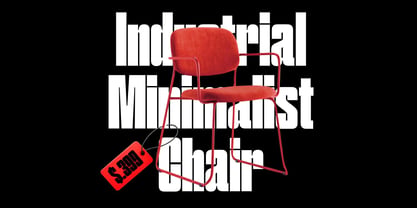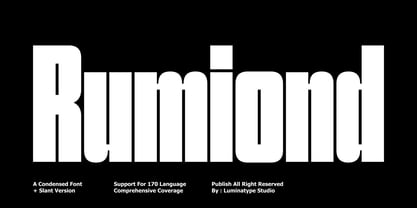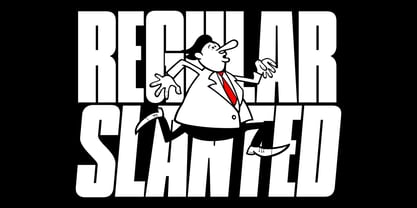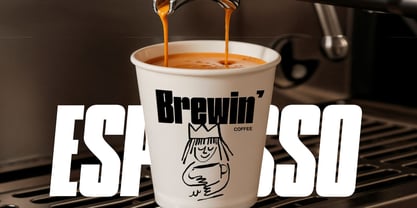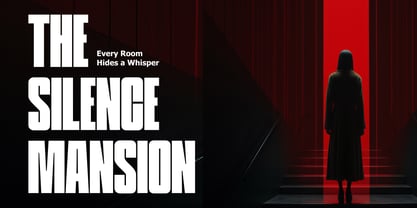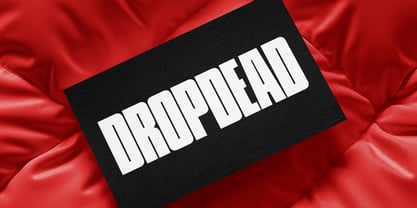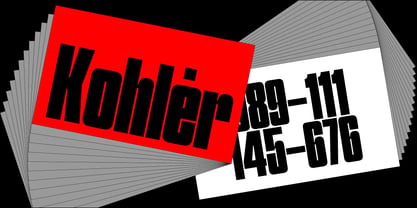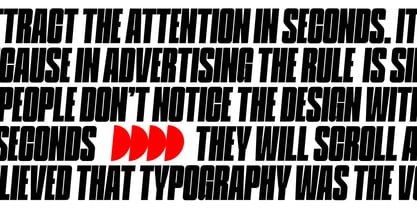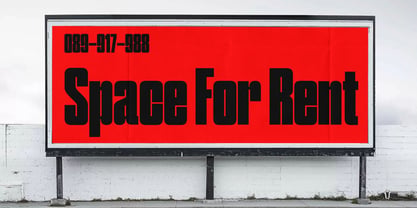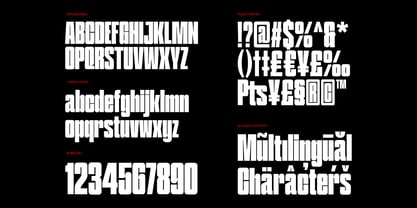
Rumiond
Rumiond – Condensed Bold Font Regular + Slant By Luminatype Studio Rumiond is a bold condensed typeface designed to deliver strength, clarity, and confident visual impact. Its tall, compact structure allows designers to create powerful layouts while maximizing space, making it perfect for headlines, posters, branding, advertising, and modern editorial designs. With its strong strokes and assertive presence, Rumiond communicates bold messages with precision and authority. The condensed form helps maintain readability while giving your designs a striking and professional character. Whether you're crafting eye-catching advertisements, bold logos, impactful social media graphics, packaging, or cinematic titles, Rumiond brings a fearless and contemporary voice to every project.